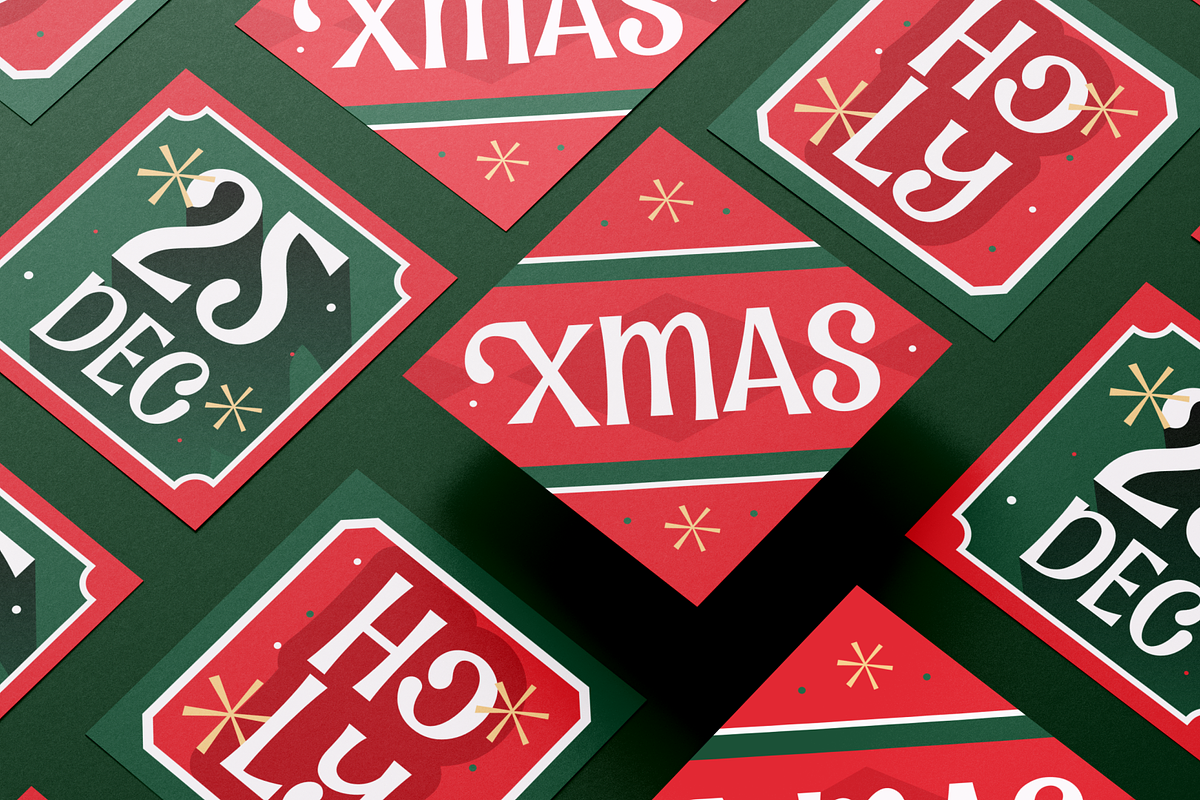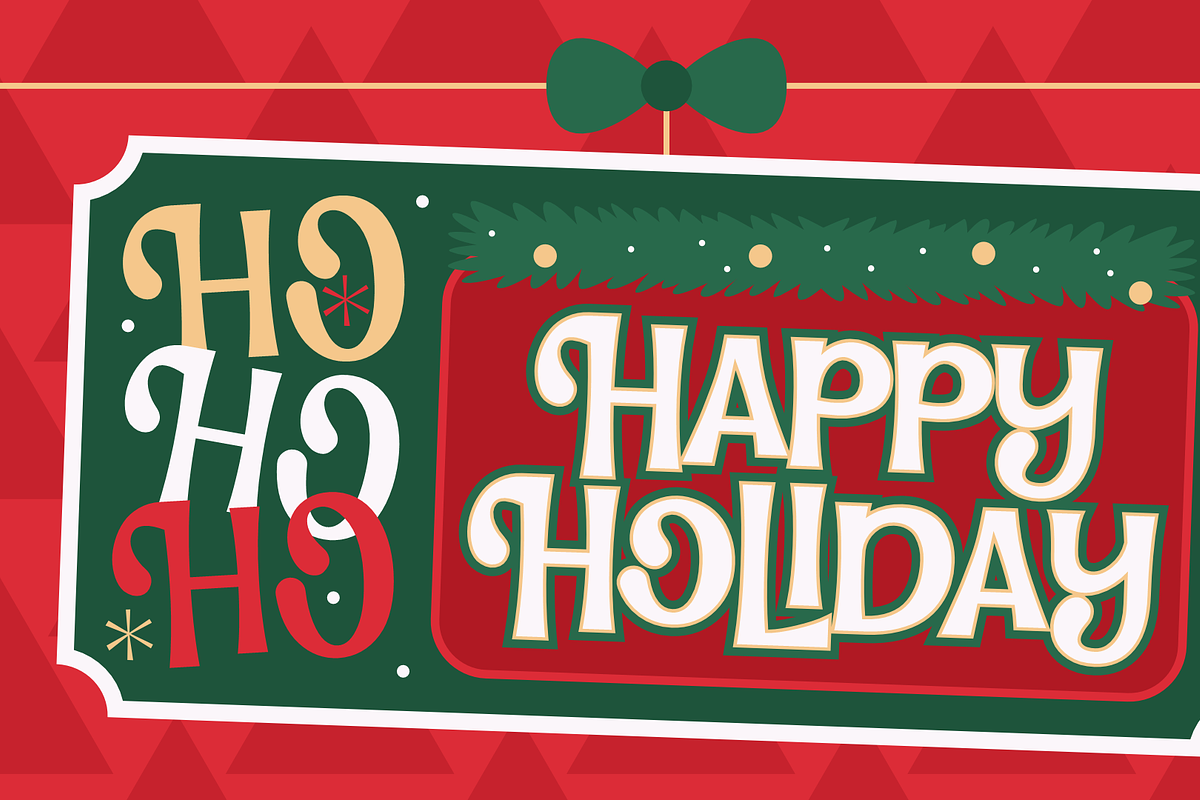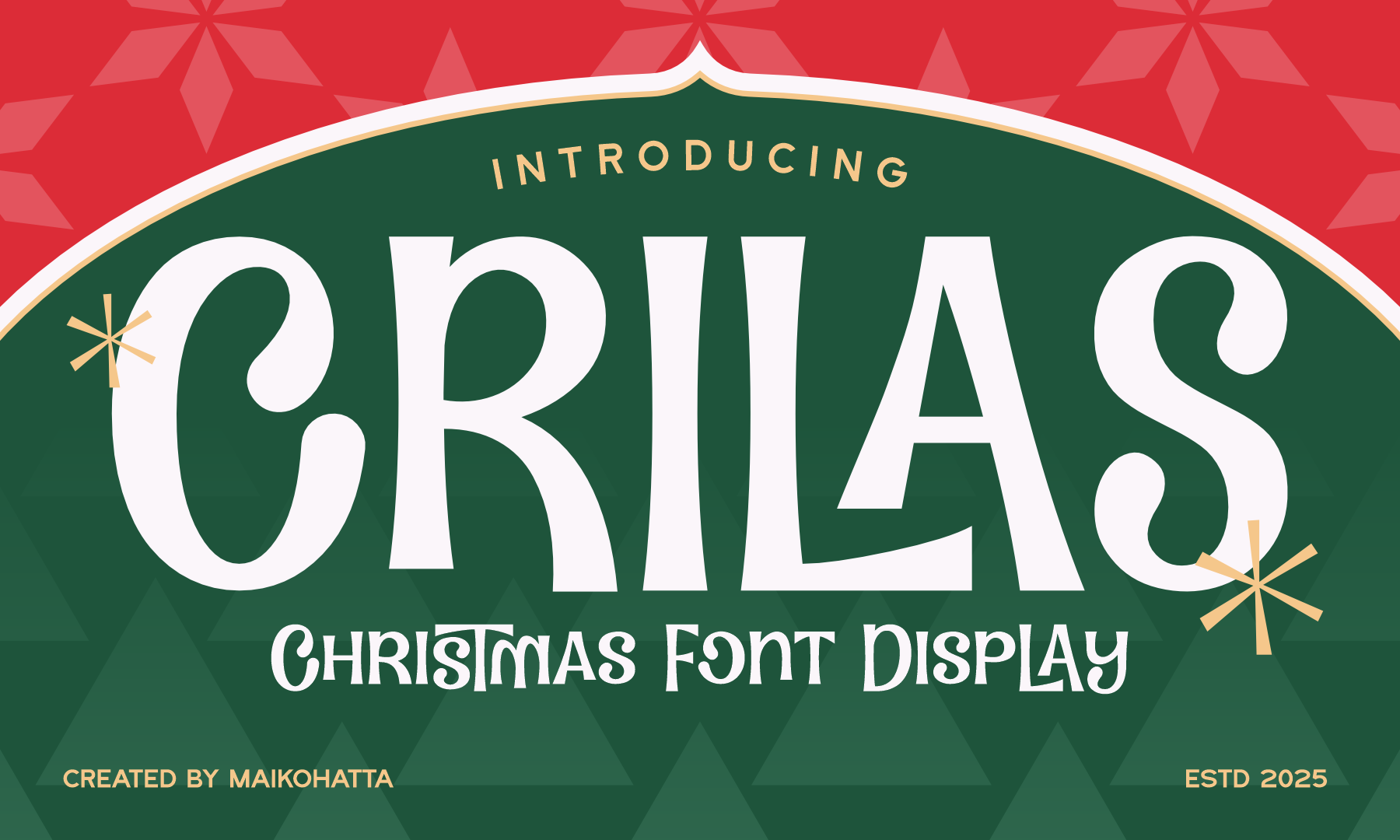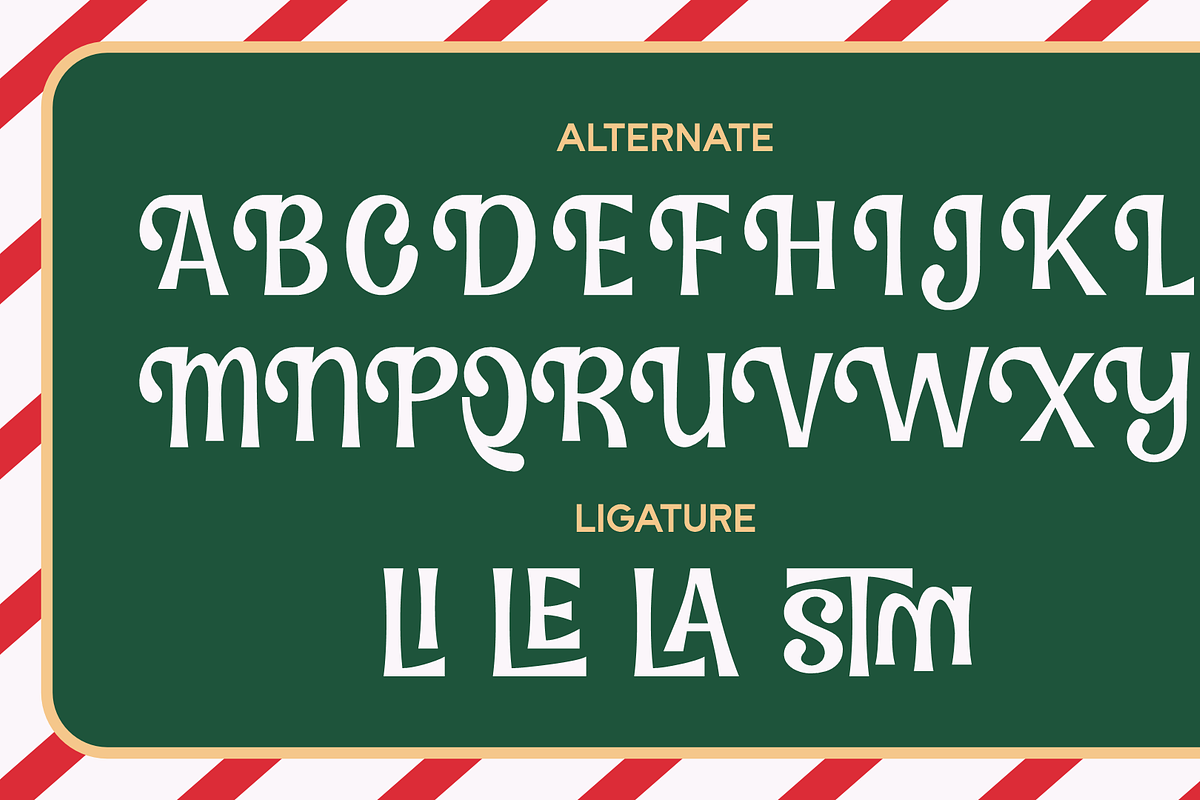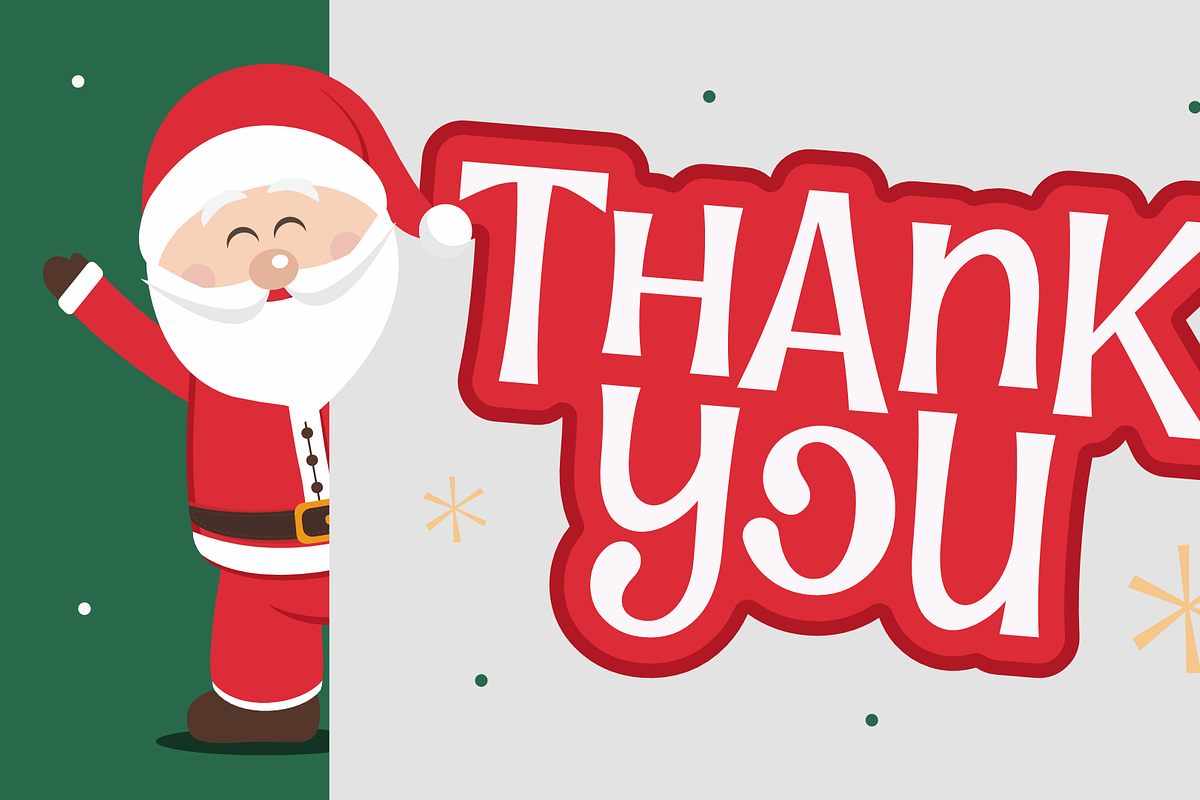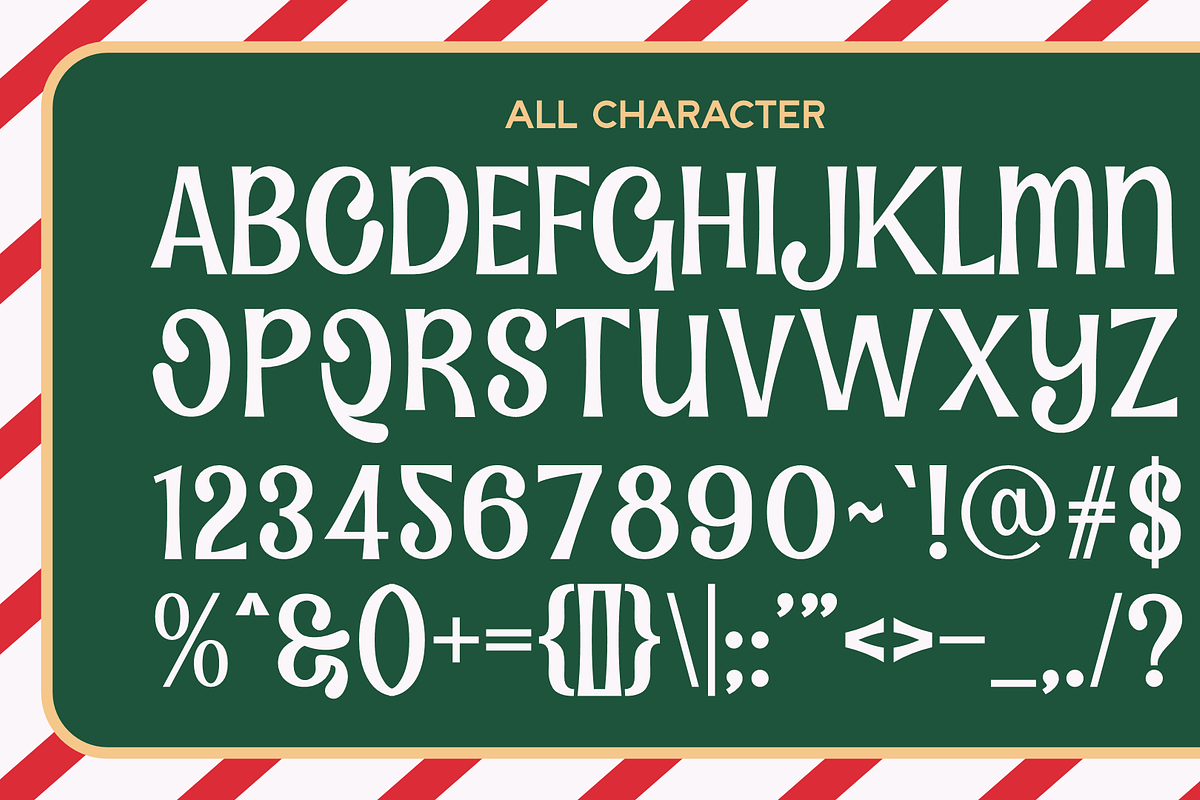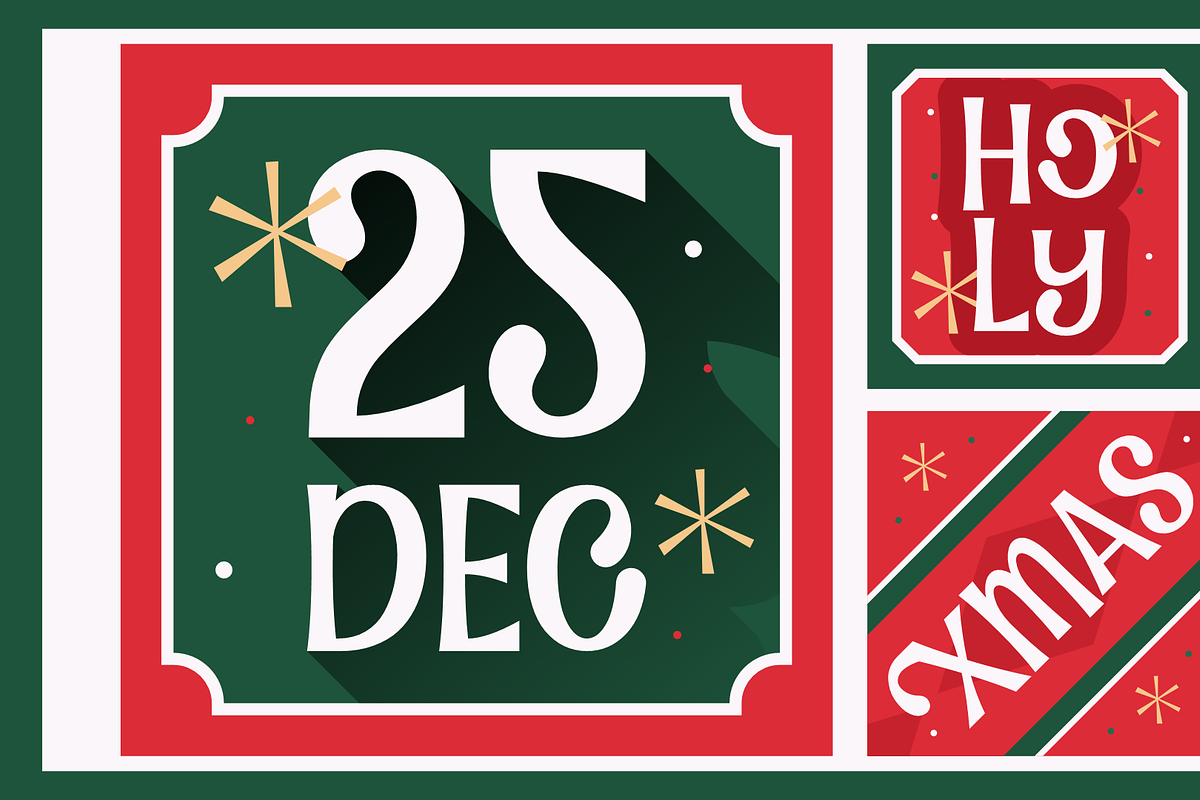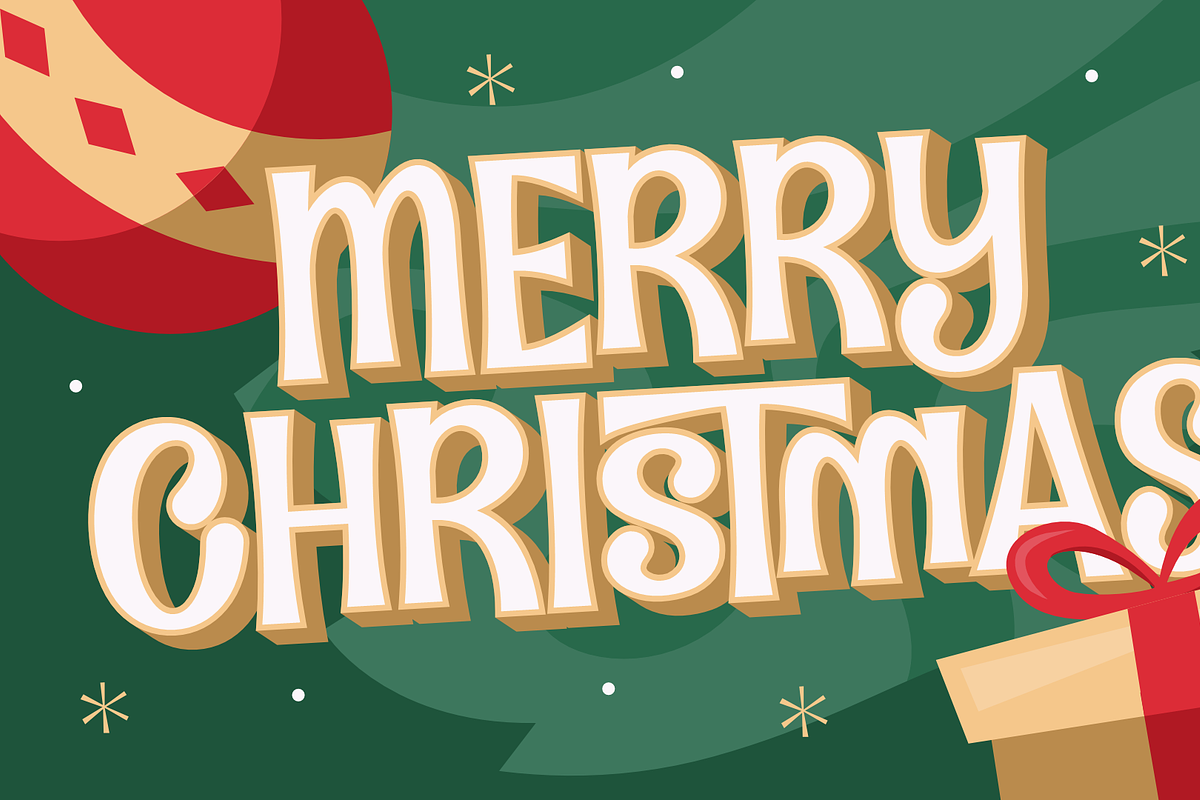
Crilas – Christmas Display Font
Introducing our new product Crilas - Christmas Display Font
Crilas is a cheerful Christmas display font that brings the warmth and magic of the holiday season into every design. With playful curves, whimsical shapes, and festive character details, this typeface captures the joyful spirit of Christmas. Perfect for greeting cards, holiday branding, packaging, posters, invitations, and seasonal merchandise, Crilas adds a charming and nostalgic touch that instantly feels merry and bright. Its bold personality and handcrafted charm make it stand out as a delightful choice for all your festive creations.